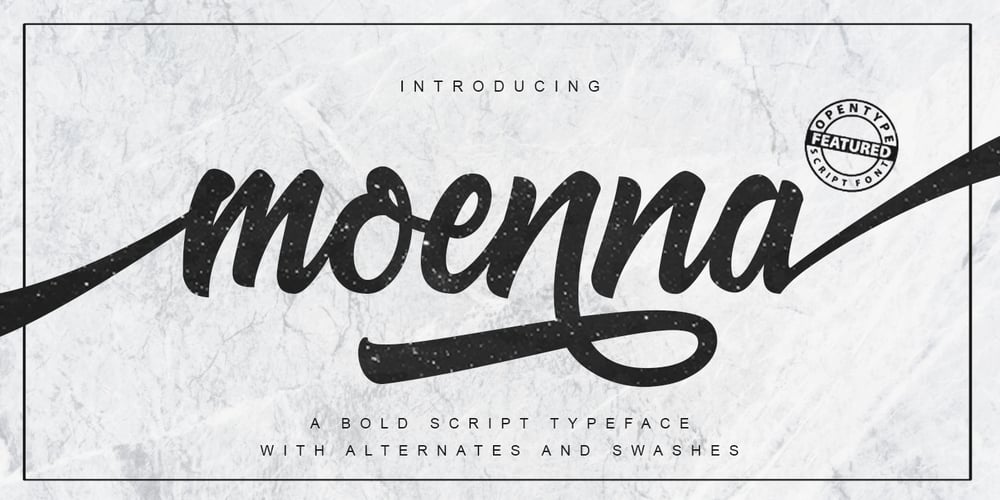
Moenna Font Family was designed by Kurniadi Saputra and published by Cooldesignlab. Moenna contains 1 styles and family package options. Moenna is a handwritten piece in bold style.This well-designed font is inspired by classic typographic designs from the 60’s to 80’s. Moenna is packed with lots of alternatives and swashes (see preview image), it will give you more options to customize your words with this OpenType feature.Moenna is best used for Logo Types, titles, covers, posters, logos, quotes, product packaging, headers, merchandise, social media & greeting cards, and more. This font also has multilingual support for standard latin characters. To access alternative glyphs, you’ll need a program that supports OpenType features such as Adobe Illustrator CS, Adobe Photoshop CC, Adobe Indesign, and Corel Draw.If you have any questions, feel free to send me a message. Thank you!